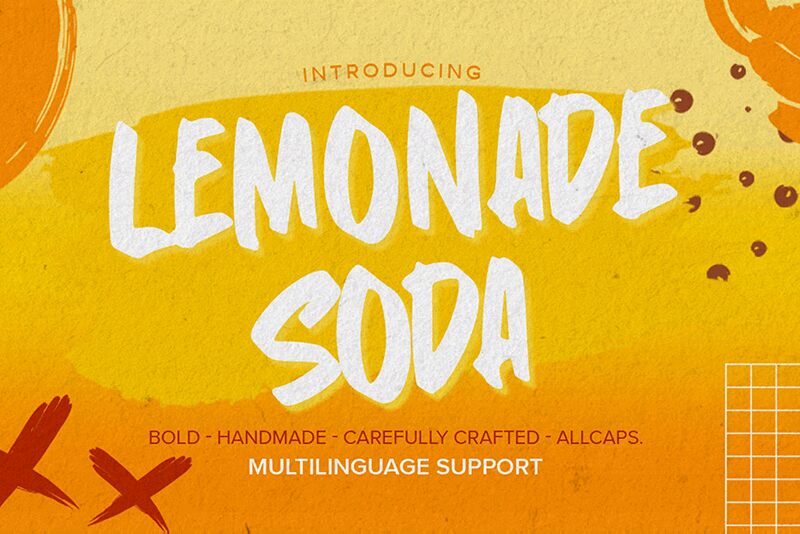
Lemonade Soda
Lemonade Soda is a bold and distinctive display font designed by Gassstype. Its handmade brush style gives it a casual and natural look, making it perfect for creative projects that require a touch of authenticity. The semi-bold weight and semi-condensed width make Lemonade Soda versatile for various design applications, from branding to packaging and social media graphics.
This carefully crafted all-caps font is ideal for adding a bold statement to your designs, whether you're working on posters, logos, or product labels. Its unique characteristics set it apart from other display fonts, giving your projects a cool and contemporary vibe.
With Lemonade Soda, you can bring an authentic hand-drawn feel to your work without sacrificing readability or style. Whether you're going for a playful or edgy look, this font has the versatility to suit your creative vision.